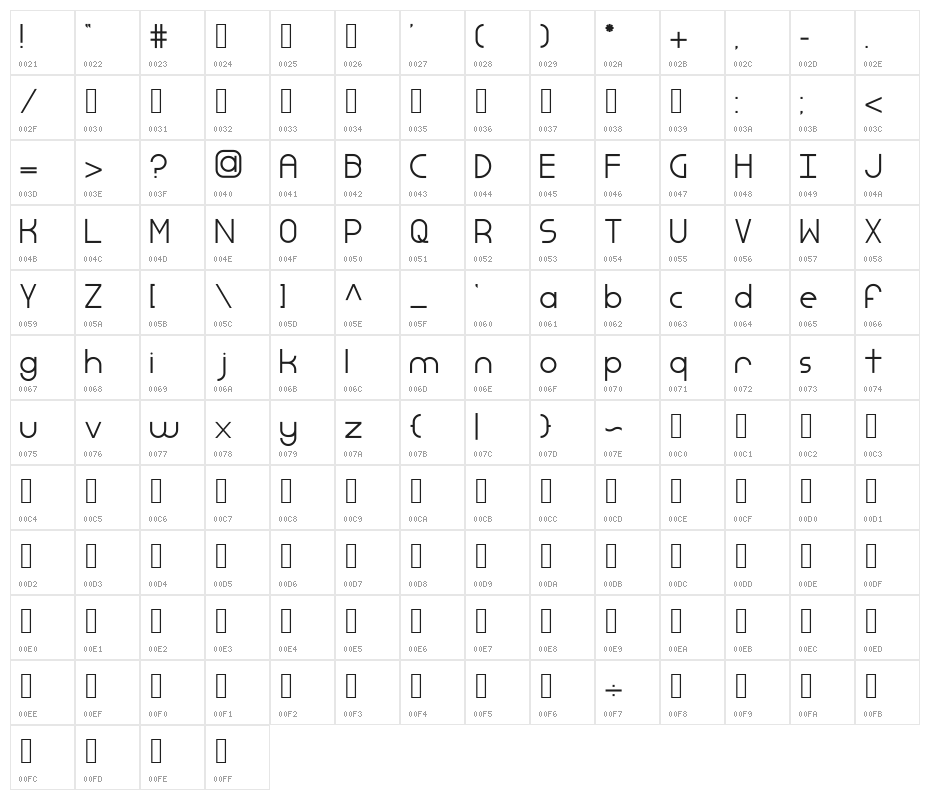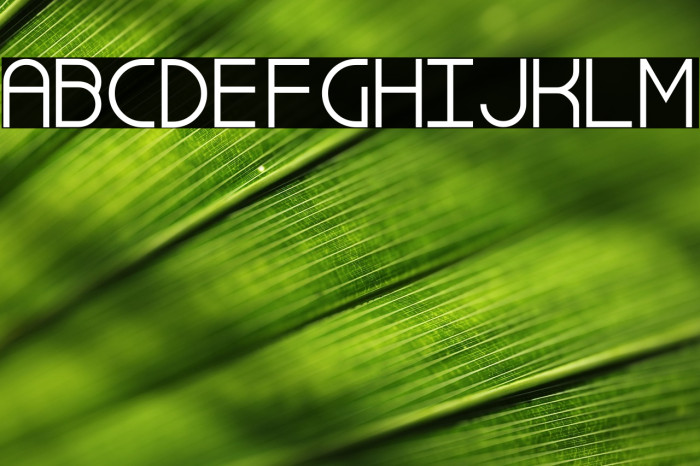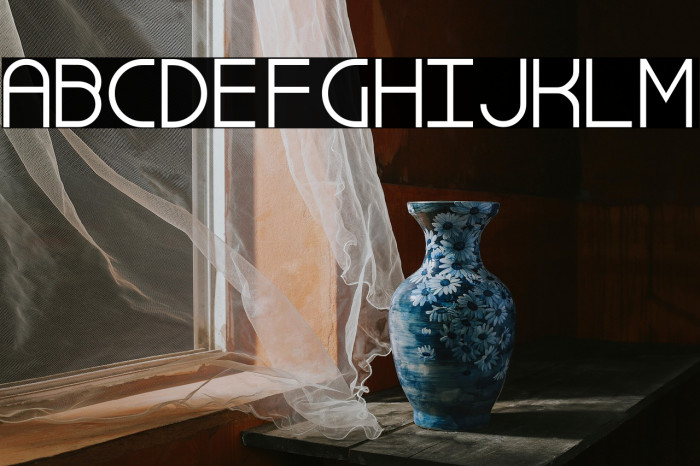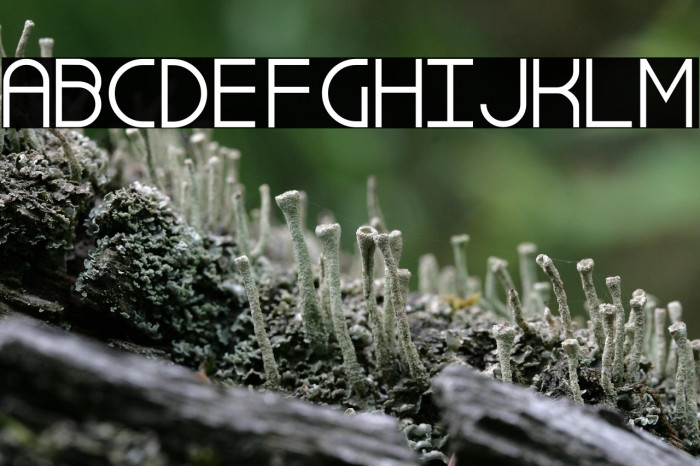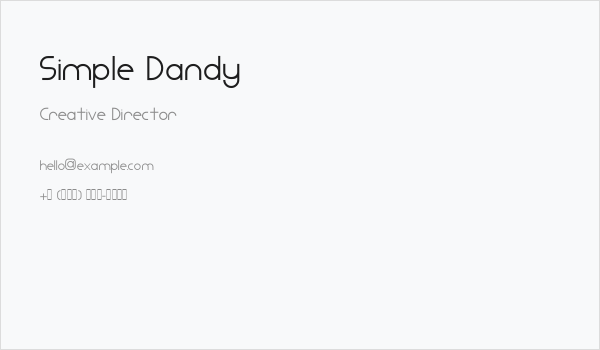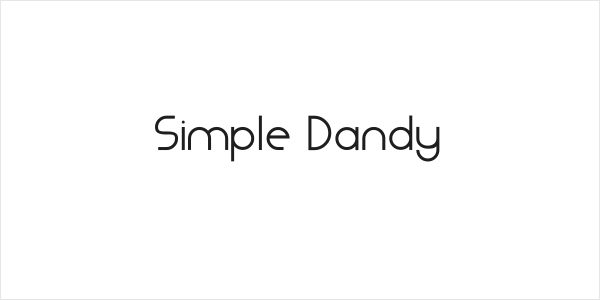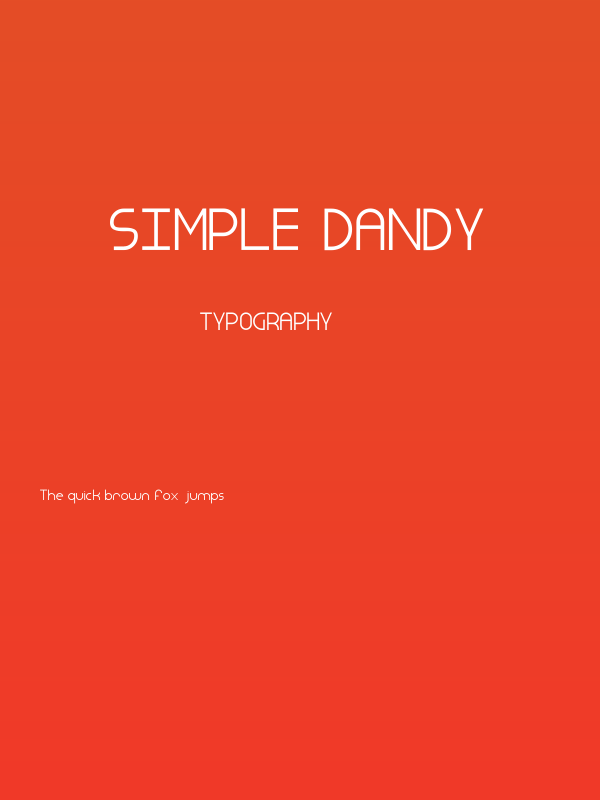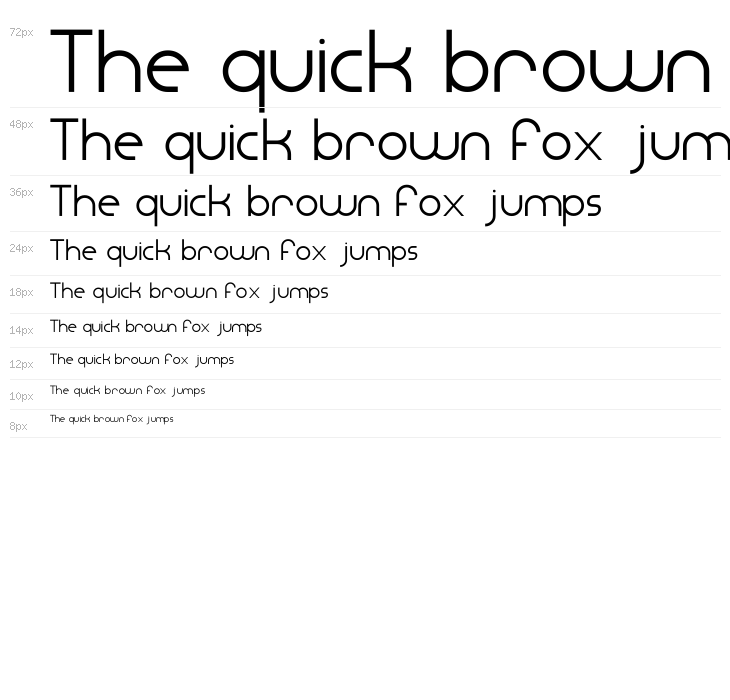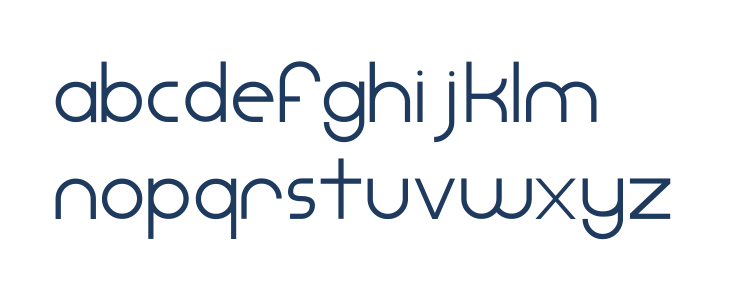
Simple Dandy Font
Simple Dandy Description
This font features a clean, geometric design with a modern aesthetic. The characters are constructed with consistent line thickness, giving it a uniform appearance. The uppercase letters are bold and striking, while the lowercase letters maintain a smooth, rounded form. The numerals and special characters are designed to complement the alphabet, maintaining the same geometric style. This font is highly legible and versatile, suitable for a variety of design applications. Its simplicity and clarity make it an excellent choice for both digital and print media.
| Proposed Projects | Ideal for branding, advertising, web design, and editorial layouts. |